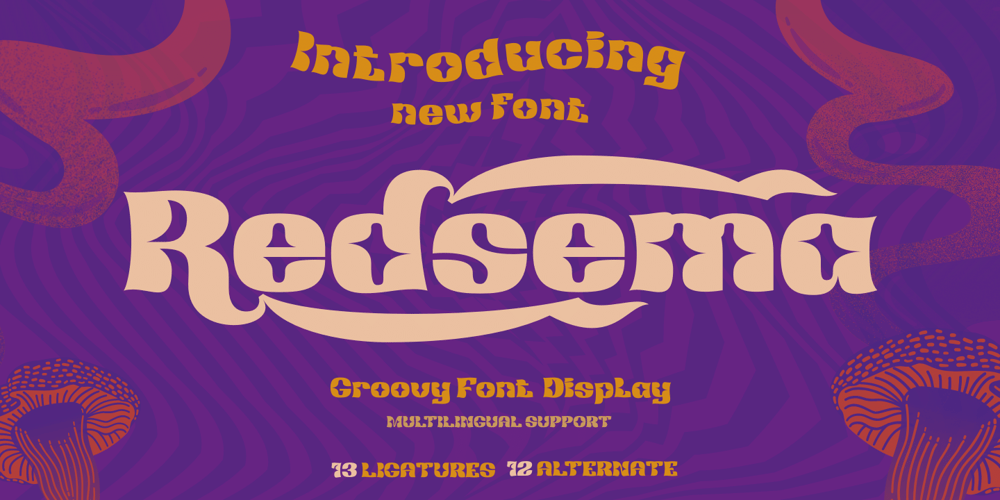
Redsema Font Family was designed by Rozikan and published by Twinletter. Redsema contains 1 styles and family package options. Looking for a unique, stylish, and fun font for your next project? Look no further than this one. Meet Redsema groovy font. With an anatomical shape between thin and thick lines, beautiful from any angle. It also features alternative lettering, ligatures, and decorative elements to add a unique flair to your work. Make the most of your designs using this font today!What’s Included : Standard glyphs Iso Latin 1 Simple installations We highly recommend using a program that supports OpenType features and Glyphs panels like many Adobe apps and Corel Draw, so you can see and access all Glyph variations. PUA Encoded Characters – Fully accessible without additional design software. Fonts include Multilingual support